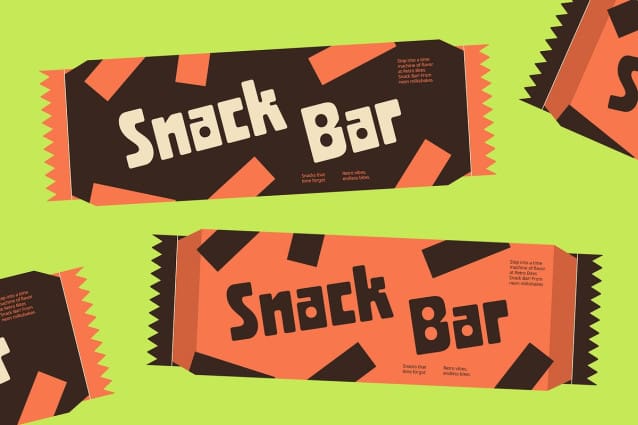
CS Chaker Font
CS Chaker is a bold, modern sans-serif display font designed to make a statement. Its thick, sturdy strokes create a strong presence, while the rounded shapes and unique letterforms add a fun, contemporary vibe. The font’s striking design ensures that it stands out in any setting, making it an ideal choice for creative and attention-grabbing projects.
Funky and Playful Vibe With its rounded edges and distinctive letterforms, CS Chaker exudes a playful and funky feel that brings energy and life to your designs. The bold weight and quirky personality of the font make it perfect for projects that aim to convey creativity, joy, and a sense of fun. Whether used in large headlines or bold statements, this font captures the essence of a lively, dynamic look.
Perfect for Creative Projects Ideal for posters, branding, and promotional materials, CS Chaker adds personality and flair to any design. Whether you’re working on vibrant event posters, music branding, or eye-catching advertisements, this font ensures your project stands out with its bold and energetic appeal.